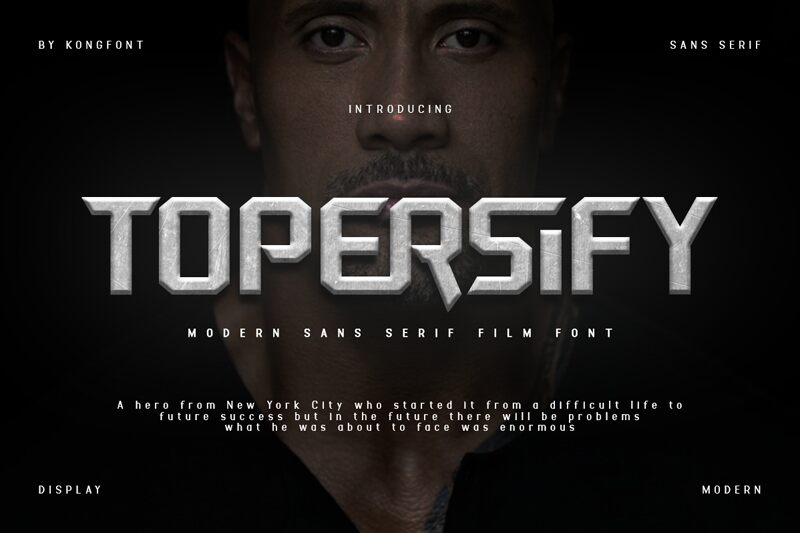
Topersify font by Kong Font is a techno free font with a modern and futuristic style. The geometric sans serif font is inspired by technology, and showcases these various influences through both prominent and subtle elements. Topersify has a smooth-flowing text, a result of mostly all similar text heights. What better way to display a technological style than seamless text that resembles the smoothness of modern computers?
In this digital age, a font like Topersify would make a perfect choice in your designs. With an industrial and structured style, Topersify can be used in contemporary designs in film and tech branding. It’s also perfect for futuristic book covers, game logos, movie posters, album covers, and more.